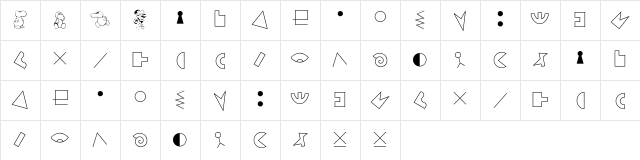
Complete JMH Alfabeto Petiso Regular glyph index. Displaying only characters natively supported by JMH Alfabeto Petiso Regular font.
JMH Alfabeto Petiso is a composed and adaptable typeface that performs quietly and consistently across a wide range of design contexts.